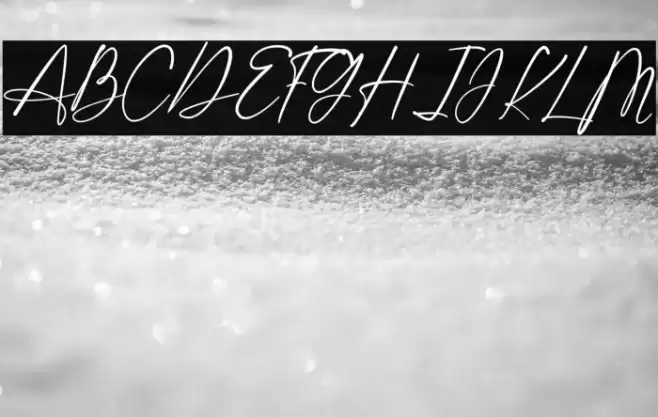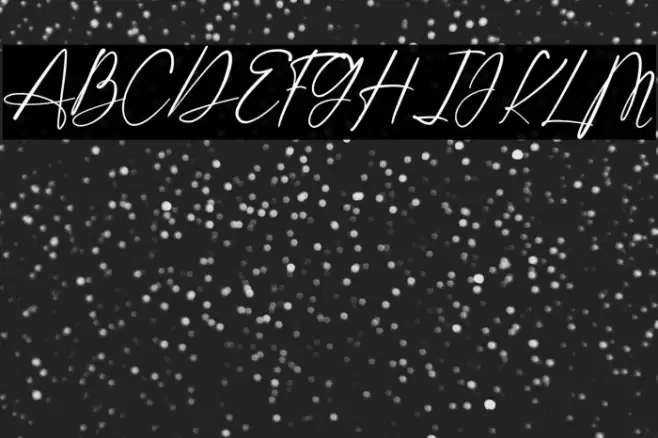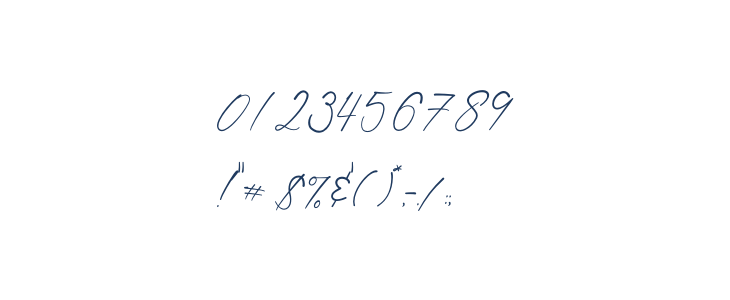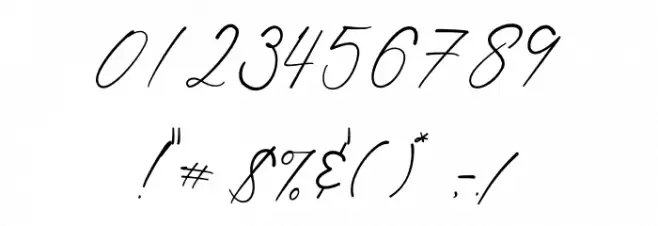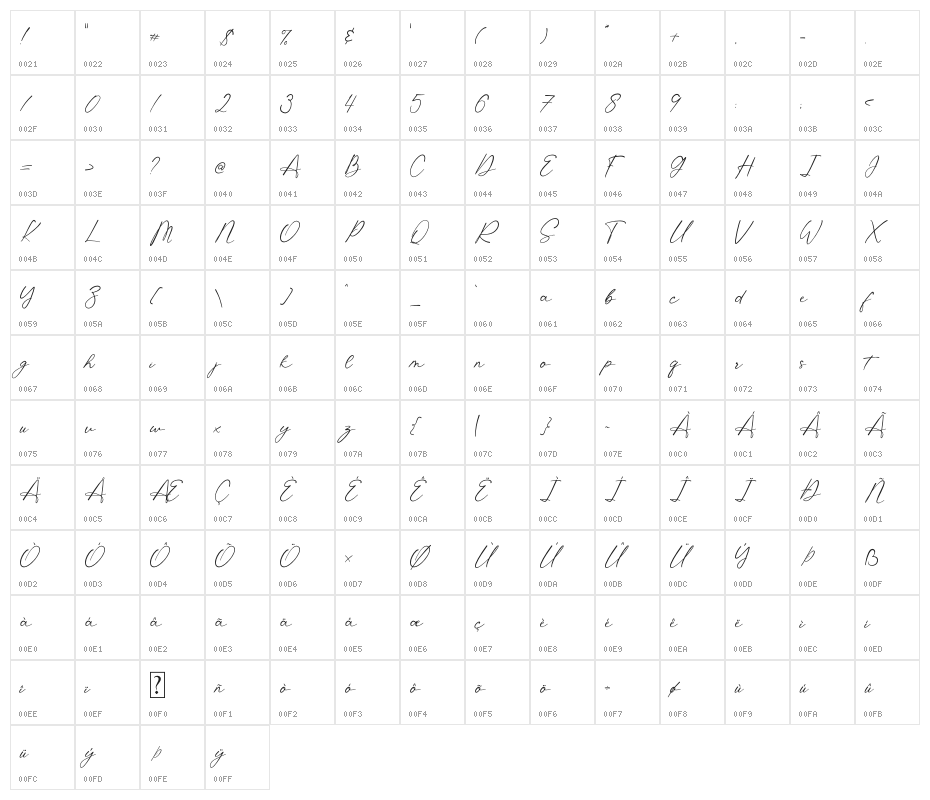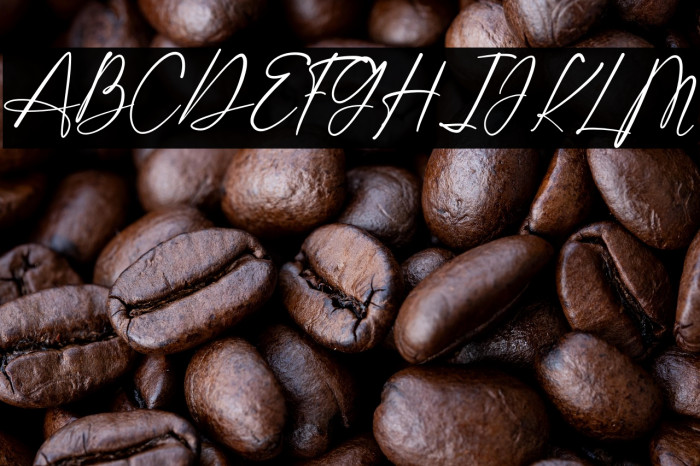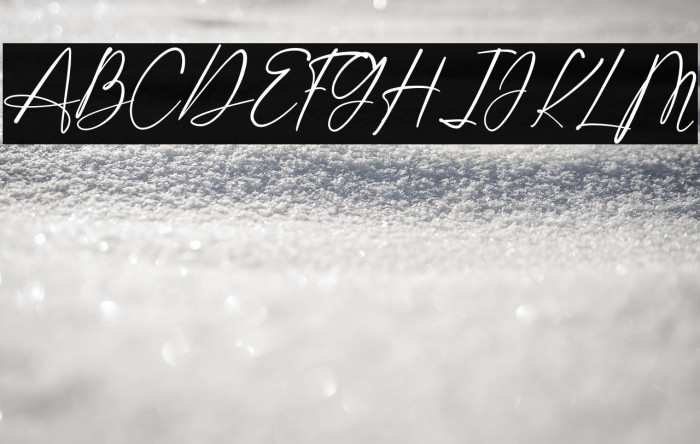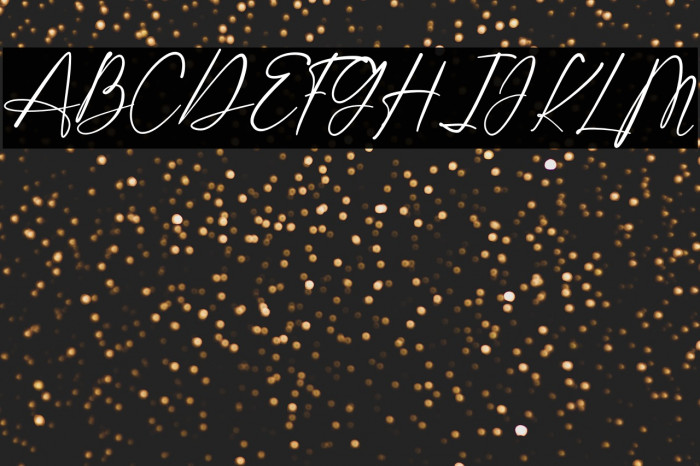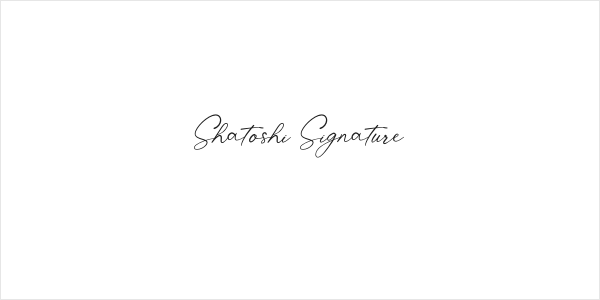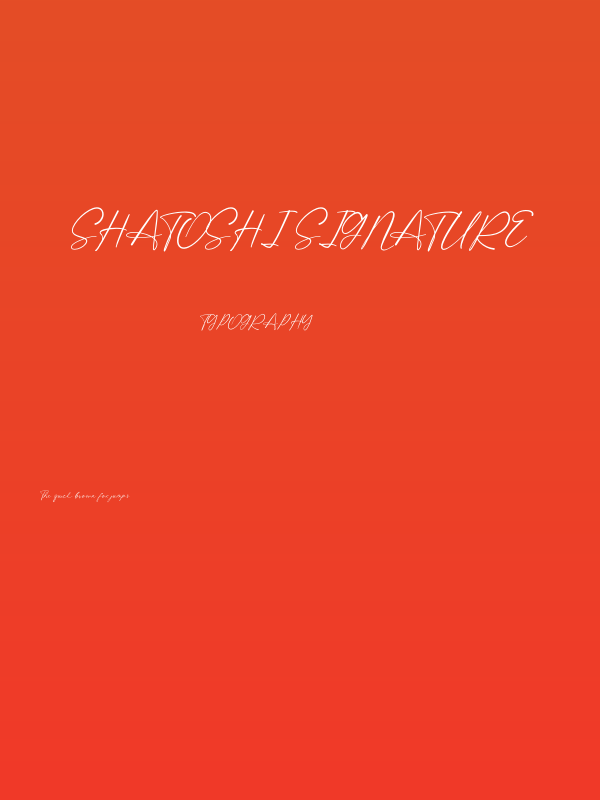
Shatoshi Signature Font
Shatoshi Signature Description
This font exudes a sophisticated and elegant style, characterized by its flowing, cursive script. The letters are interconnected, creating a seamless and fluid appearance reminiscent of a personal signature. The strokes are varied in thickness, adding a dynamic and lively feel to the text. The uppercase letters are tall and graceful, while the lowercase letters maintain a consistent and harmonious flow. Numbers and special characters are designed to match the overall aesthetic, ensuring a cohesive look across all elements. This font is ideal for projects that require a touch of elegance and personal flair.
A sophisticated cursive script with a signature-like flow from Uncategorized fonts.
- Font: Shatoshi Signature
- Proposed Projects: Ideal for wedding invitations, personal branding, elegant logos, and greeting cards.
- Overall Style: Elegant
- Use Case: Logos, Invitations, Personal Branding